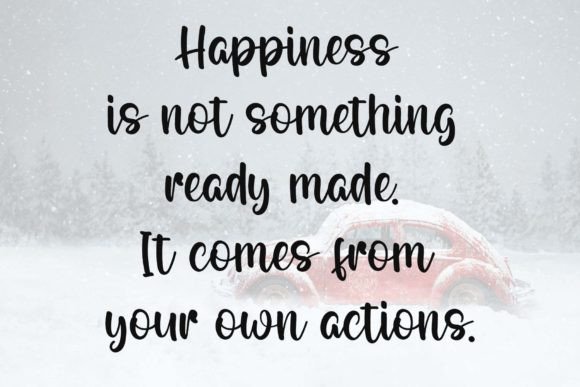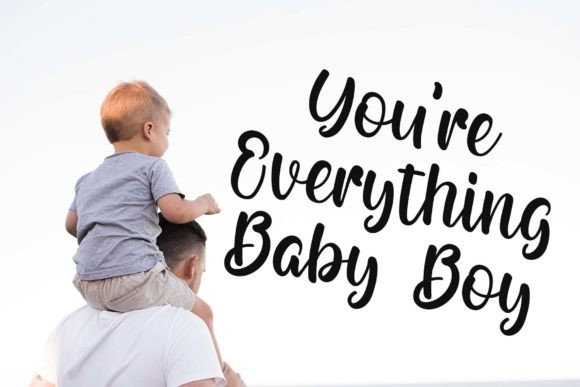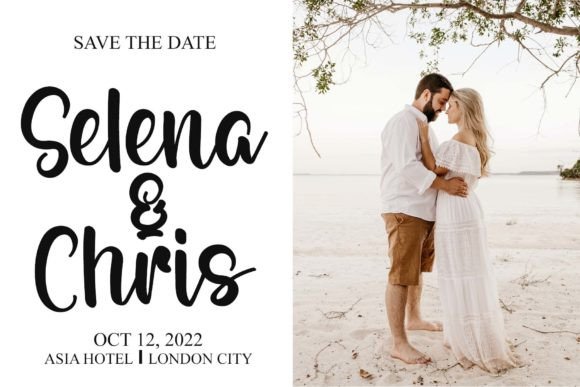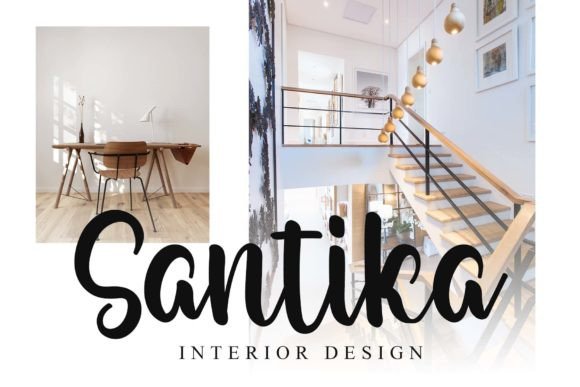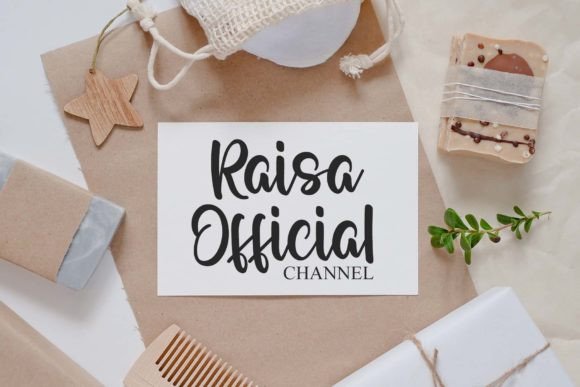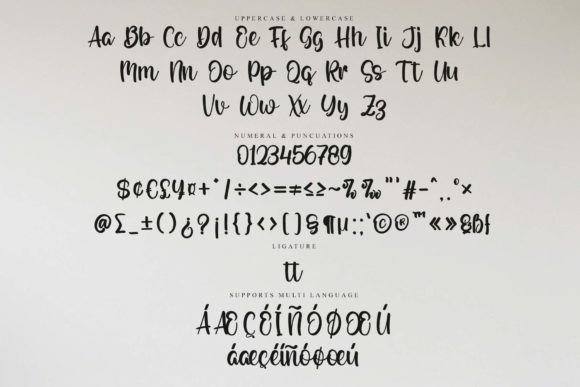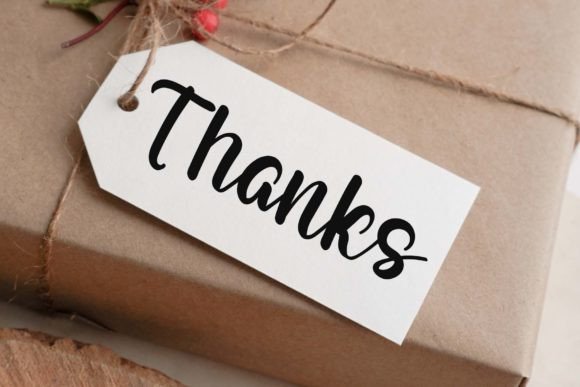
Barking Font
About Barking Font
**Barking Font: A Stylish and Dainty Script Typeface**
Introducing Barking, a stylish and dainty script font that adds a touch of elegance to your design projects. Whether you’re working on logos, branding, labels, photography, watermarks, or special events, Barking is the perfect choice for projects that demand a handwritten touch. Here’s why Barking stands out:
**Elegant Aesthetic:** Barking exudes elegance with its graceful and delicate letterforms, making it an excellent choice for projects that require a sophisticated and refined look.
**Stylish Versatility:** This font is incredibly versatile, making it suitable for a wide range of applications, from logos and branding to labels, photography, watermarks, and special events.
**Handwritten Charm:** Barking captures the charm of handwritten script, giving your designs a personal and authentic feel that resonates with your audience.
**Branding Excellence:** Elevate your brand with Barking’s stylish lettering, creating a memorable and sophisticated visual identity that sets you apart from the competition.
**Photography Enhancement:** Use Barking to watermark your photographs and images, adding an elegant and personalized signature to your work.
**Special Event Elegance:** Whether it’s invitations, announcements, or event promotions, Barking adds an air of sophistication to all your special event materials.
**Labels and Packaging:** Make your product labels and packaging stand out with Barking’s elegant script, creating a lasting impression on your customers.
**Timeless Beauty:** Barking’s classic and timeless style ensures that your designs remain relevant and appealing for years to come.
**Logos that Shine:** Craft distinctive logos that shine with Barking’s dainty and stylish lettering, leaving a lasting mark on your target audience.
**Watermark with Class:** Protect your digital assets with a watermark that exudes class and elegance, thanks to Barking’s refined script.
**Creative Freedom:** Barking provides you with creative freedom to experiment with stylish typography in your projects, giving them a unique and sophisticated edge.
**Visual Excellence:** Barking enhances the visual appeal of your designs, adding an element of refined beauty that captivates your audience.
**Capture Attention:** The stylish and dainty nature of Barking captures attention and ensures that your designs leave a memorable impact.
**Design Confidence:** Design with confidence knowing that Barking’s elegant script font elevates your projects and conveys a sense of timeless beauty.
**Elevate Your Brand:** Elevate your brand’s image and reputation by incorporating Barking into your visual identity.
**Sophisticated Appeal:** Barking’s sophisticated appeal is perfect for projects that require a touch of class and elegance.
**Design Elegantly:** Design your projects elegantly with Barking, and experience how it can transform your creations into refined works of art.
**Upgrade Your Toolkit:** Add Barking to your design toolkit and discover how its stylish and dainty script can enhance your creative projects.
**Design with Barking:** Embrace the elegance of Barking and see how it can bring sophistication and refinement to your designs.
**Enhance Your Creativity:** Barking empowers you to tap into your creativity and leverage its elegance to create visually stunning and stylish designs.
**Design with Confidence:** Design with Barking, and let its stylish and dainty nature become a valuable asset in your creative toolbox.
**Make Every Design Shine:** Use Barking to ensure that every design you create shines with an elegant and sophisticated touch that leaves a lasting impression.